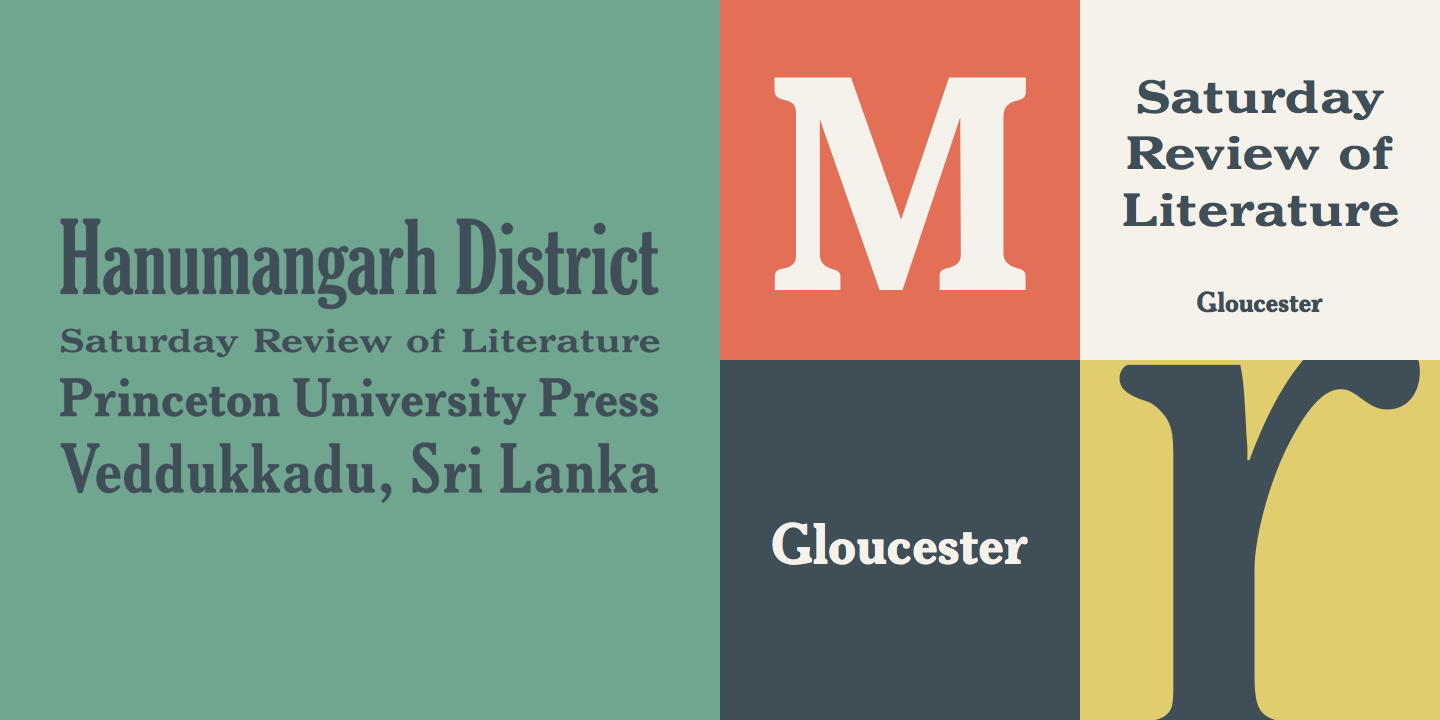
Gloucester Font is ideal for traditional British branding, heritage tourism materials, historical documentaries, classic literature publications, academic institutions, maritime industry signage, and distinguished cultural projects.
What makes Gloucester Font exciting is its timeless British elegance and distinguished heritage, featuring classic letterforms that capture the essence of English tradition while delivering exceptional sophistication and historical authenticity.
The Gloucester Font family includes Light, Regular, Medium, Bold, and Black weights, plus traditional variants and heritage alternates that enhance the font's distinguished character and British appeal.
Gloucester Font Free Download embodies the distinguished tradition of British typography and cultural heritage through masterful design craftsmanship. This prestigious typeface captures the refined spirit of English culture and historical significance, creating a sophisticated visual language that speaks to audiences who appreciate British tradition, cultural depth, and the enduring elegance of historical design principles. The font's distinguished character and heritage appearance make it perfect for cultural institutions, educational organizations, and traditional brands that want to communicate respectability, historical connection, and the refined sophistication of British cultural heritage.
Cultural institutions and heritage organizations consistently select Gloucester Font for projects that require authentic British credibility and traditional visual appeal. The typeface's distinguished construction and heritage personality make it exceptionally effective for museums, universities, and cultural venues where historical accuracy and British sophistication are paramount. Each character has been crafted with traditional precision to ensure authentic appeal across all heritage applications and cultural environments.
The cultural advantages of Gloucester Font extend beyond its British appeal to include practical functionality for diverse traditional applications. The font maintains excellent readability in scholarly settings while delivering the distinctive character that creates meaningful cultural connections and resonates with audiences seeking authentic British heritage. Its comprehensive character set includes traditional symbols and cultural elements that make it particularly suitable for heritage documentation and cultural communication.
Universities, museums, and heritage organizations frequently choose Gloucester Font because of its ability to instantly convey British tradition and cultural authenticity. The typeface's distinguished aesthetic helps establish credibility in educational and cultural markets while appealing to audiences who value historical knowledge, British culture, and the refined sophistication that comes from centuries of cultural development and traditional British design excellence.